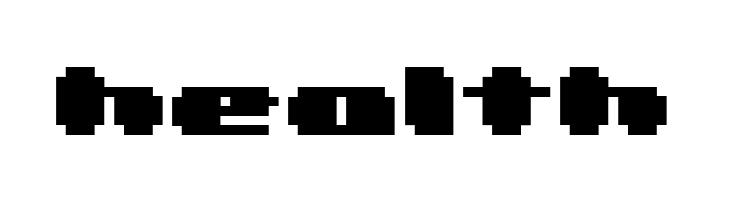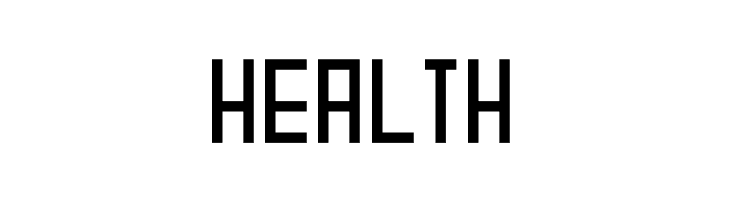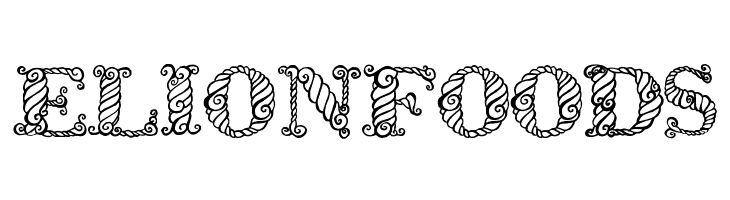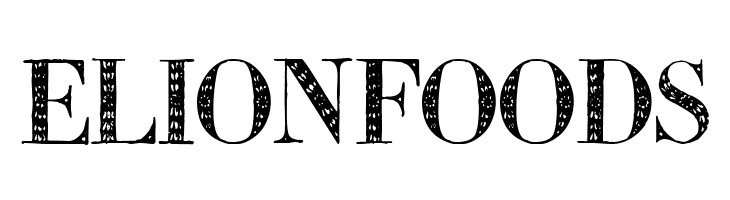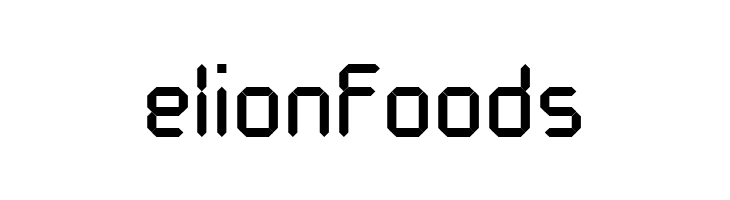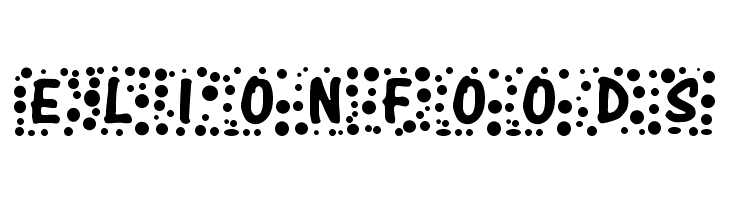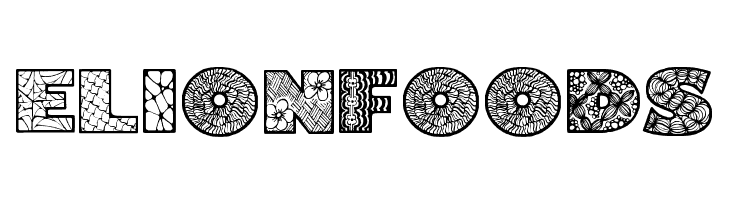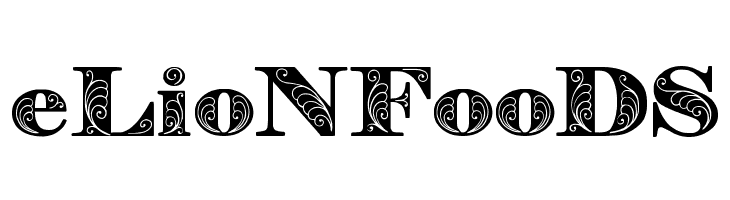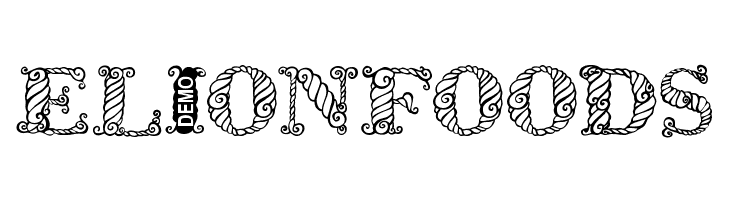
A bold Blackletter font with sharp, angular lines and a historical elegance.
A bold, blackletter-inspired font with a modern edge.
A bold, ornate blackletter style font with intricate detailing.
A playful, handwritten font with smooth curves and whimsical style.
A playful, bold, and rounded font with a hand-drawn, cartoon-like style.
A classic serif font with sharp serifs and moderate stroke contrast.
A classic serif font with elegant tapering and refined style.
A bold, dramatic Blackletter-style font with sharp, angular lines.
A bold, blackletter font with a medieval, Gothic style.
A bold, italic Blackletter-style font with strong, angular strokes.
A flowing, cursive font with elegant, interconnected strokes and calligraphic flair.
A playful, dot-based font perfect for creative and whimsical projects.
A geometric, modern font with a digital and futuristic aesthetic.
An ornate Blackletter font with intricate flourishes and a vintage Gothic style.
The image contains decorative vignettes, not a valid font.
An ornate, Gothic-inspired font with intricate flourishes and blackletter forms.
Ornate and vintage vignettes with intricate floral and decorative motifs.
A bold, decorative font with a wood grain texture and hand-drawn style.
A playful, rounded font with consistent stroke width and elegant curls.
A decorative font with intricate patterns and textures, ideal for creative projects.
A decorative font with intricate, swirling patterns and a vintage flair.
An ornate and decorative font with intricate swirls, ideal for vintage-themed projects.
An intricate, decorative font with high contrast and elegant flourishes.
An elegant script font with flowing, ornate letters and intricate swashes.
A sophisticated script font with elegant swirls and flowing cursive style.
An ornate and decorative font with intricate patterns and vintage elegance.
An ornate, decorative serif font with intricate patterns and a vintage flair.
An ornate and decorative font with swirling, artistic patterns.
An ornate and decorative font with intricate swirls and embellishments.